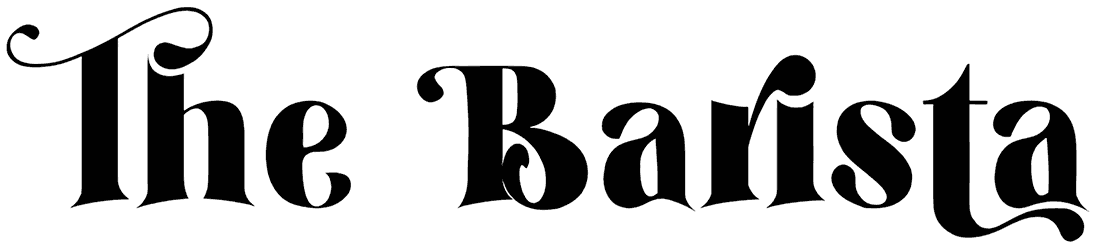
The Barista Font
This specific retro font will give your typography a stunning look with its playful characters and stylish glyphs! The Barista font is creative; it adds a modern aesthetic feel with a fashionable look. The letterforms and their alluring curves can be included in business cards, branding, logos, flyers, books, and wherever you would like an elaborate design.